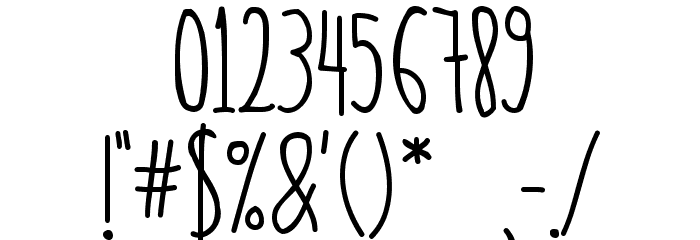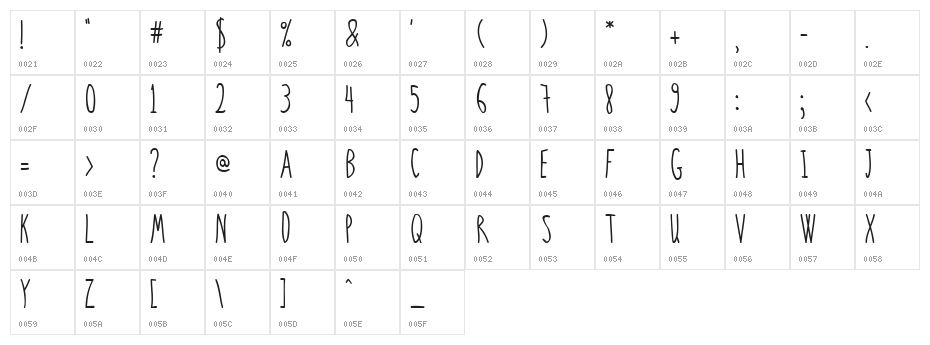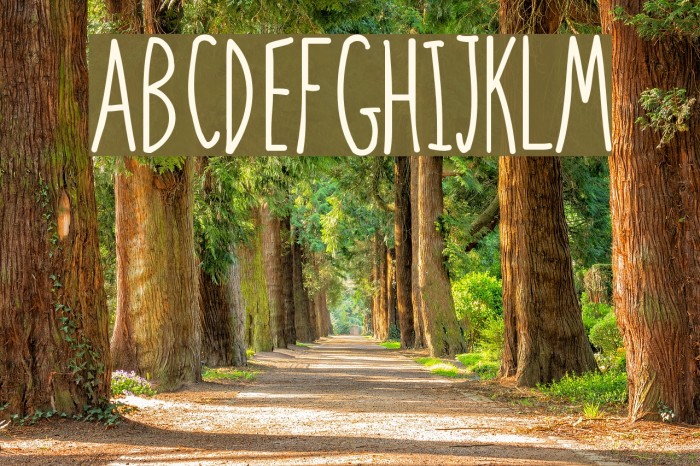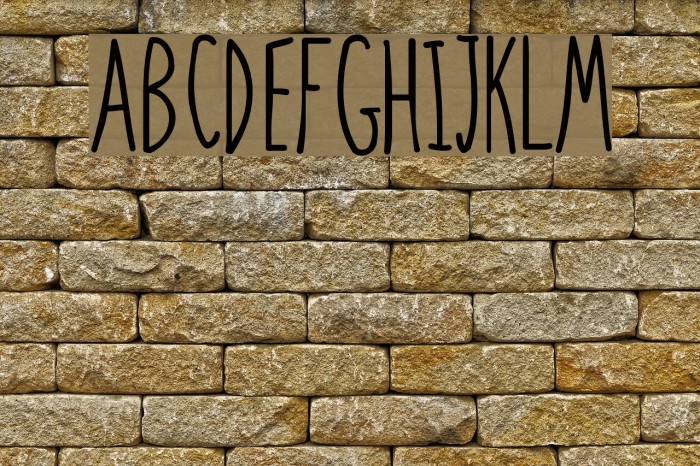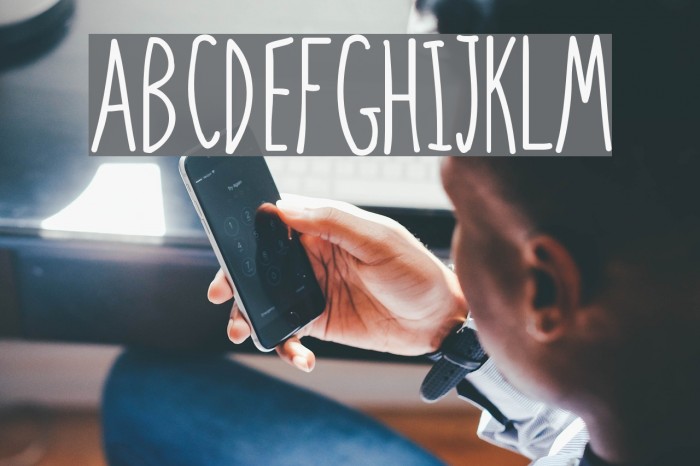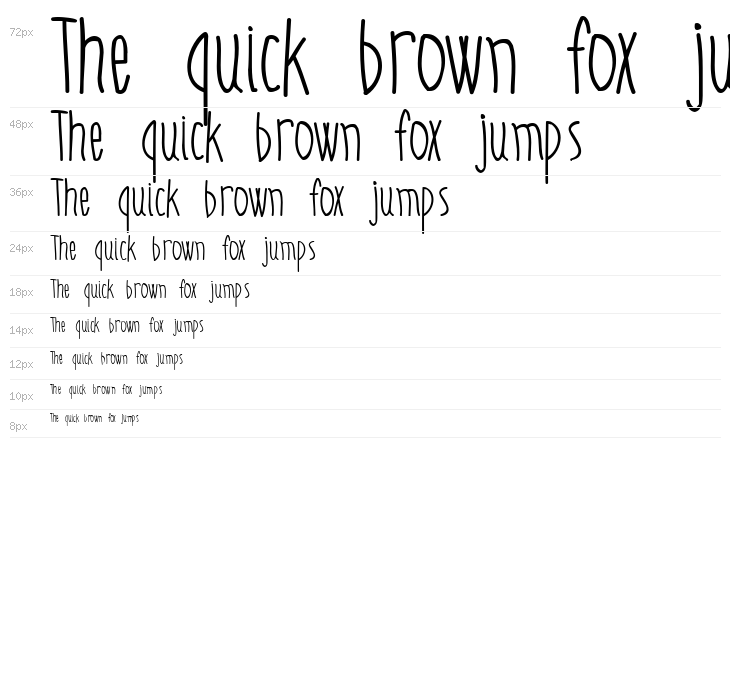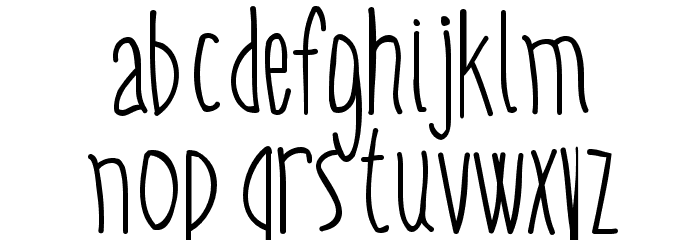
BPtall Font
BPtall Description
This font features a playful and whimsical style with tall, narrow characters. The letters have a hand-drawn appearance, giving them a casual and friendly vibe. The strokes are consistent in width, providing a uniform look across all characters. The uppercase and lowercase letters maintain a similar height, enhancing the font's unique and quirky character. The numbers and special characters are designed to match the overall style, making them cohesive with the alphabet. This font is ideal for projects that require a fun and informal touch.
| Proposed Projects | Great for children's books, greeting cards, playful branding, and creative posters. |